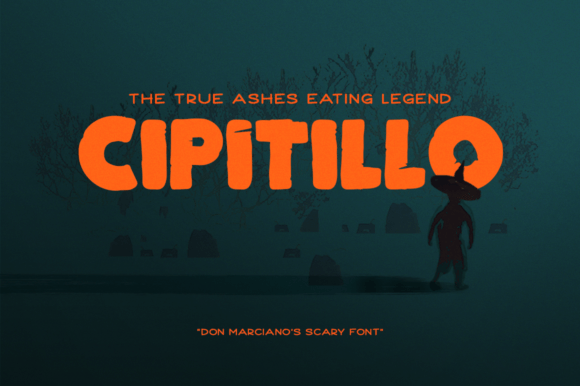
Welcome to the world of Cipitillo, the hauntingly beautiful display font that will cast a spell on your designs! Crafted by the master hand of DonMarciano, Cipitillo is not just a font; it's an experience that will transport you to a realm of mystery and intrigue.
Cipitillo's bold, devilish charm is undeniable. Its elegantly twisted characters dance across the page, captivating the viewer with their spooky comic-style flair. Whether you're conjuring up a Halloween poster, designing a spine-chilling book cover, or adding a touch of darkness to your branding, Cipitillo is your perfect partner in crime.
Imagine the gasps of awe as your audience encounters your designs adorned with Cipitillo's enchanting aura. Its unique, eye-catching style will cast a spell on their senses, leaving them spellbound and eager for more. Unleash your creativity and delve into the world of the supernatural, where Cipitillo reigns supreme.
With Cipitillo, your designs will transcend the ordinary and enter the realm of the extraordinary. Its eerie beauty will add a touch of mystery to invitations, flyers, and social media posts, leaving a lasting impression on all who behold it.
But Cipitillo is not just for the Halloween season; it's a font that knows no bounds. Its versatility extends far beyond the realm of horror, reaching into the worlds of fantasy, mystery, and even humor. Picture a children's book with Cipitillo's playful, mischievous characters or a whimsical logo that sparks the imagination.